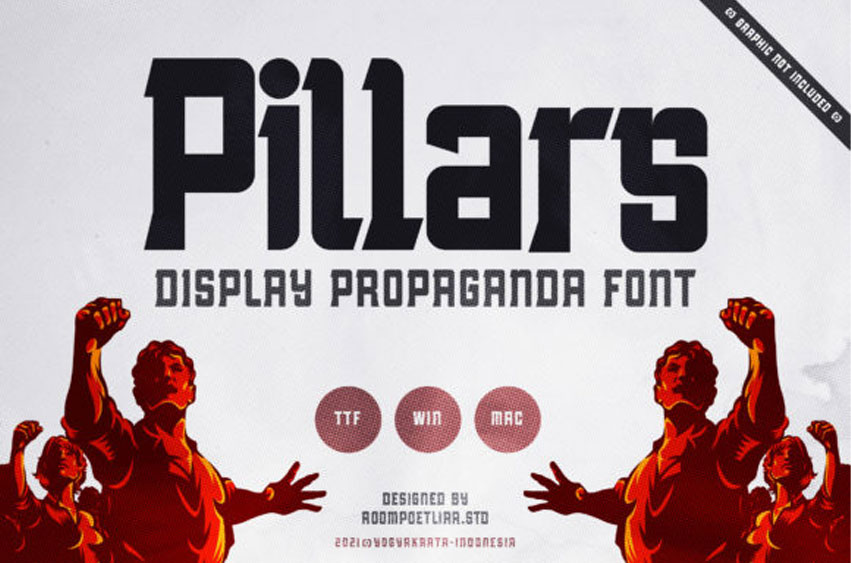
Pillars Font
Pillars Font is a cool and bold thick lettered display font.
This font is suitable for designs such as t-shirts, sportswear, logos, advertisements, clothing, and more.